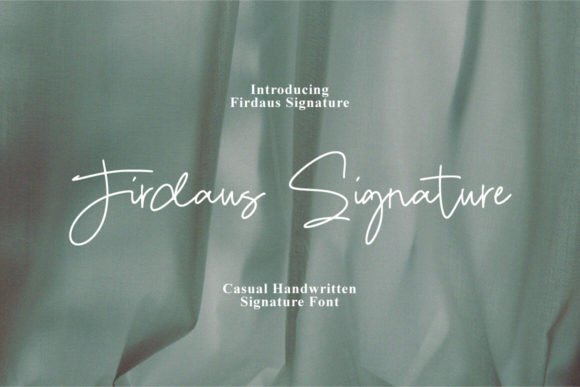
Firdaus Signature Font: Elevate Your Designs with Elegance and Sophistication
In the world of typography, a signature font can make all the difference in creating a lasting impression. Firdaus Signature is a stylish and casual handwritten font that has gained popularity for its smooth, flowing lines and natural look. This elegant font is perfect for personal signatures, logos, invitations, or any design that needs a relaxed yet sophisticated feel. In this article, we’ll explore the features, benefits, and uses of Firdaus Signature Font, and why it’s a must-have for designers and non-designers alike.
What is Firdaus Signature Font?
Firdaus Signature is a modern, handwritten font designed to add a touch of elegance and sophistication to any design project. Its smooth, flowing lines and natural look make it perfect for creating personal signatures, logos, and other visual elements that require a unique and stylish touch. The font’s casual and relaxed feel makes it ideal for use in a variety of design applications, from wedding invitations and greeting cards to branding and advertising materials.
Key Features of Firdaus Signature Font
- Smooth and Flowing Lines: Firdaus Signature Font features smooth, flowing lines that give it a natural and elegant look.
- Casual and Relaxed Feel: The font has a casual and relaxed feel, making it perfect for designs that require a personal touch.
- Handwritten Style: Firdaus Signature is a handwritten font, which gives it a unique and personal feel.
- Elegant and Sophisticated: The font’s elegant and sophisticated look makes it perfect for high-end designs and luxury brands.
- Versatile: Firdaus Signature Font is versatile and can be used in a variety of design applications, from print to digital.
Benefits of Using Firdaus Signature Font
Using Firdaus Signature Font in your designs can have several benefits. Here are a few:
- Unique and Memorable: Firdaus Signature Font can help you create unique and memorable designs that stand out from the crowd.
- Elegant and Sophisticated: The font’s elegant and sophisticated look can help elevate your brand’s image and create a lasting impression.
- Easy to Read: Firdaus Signature Font is easy to read, making it perfect for use in body text and other long-form content.
- Customizable: The font is highly customizable, allowing you to adjust the size, color, and style to fit your design needs.
Uses of Firdaus Signature Font
Firdaus Signature Font is a versatile font that can be used in a variety of design applications. Here are a few examples:
- Personal Signatures: Firdaus Signature Font is perfect for creating personal signatures that are unique and stylish.
- Logos: The font can be used to create elegant and sophisticated logos for businesses and brands.
- Invitations: Firdaus Signature Font is ideal for use in wedding invitations, birthday invitations, and other formal events.
- Branding: The font can be used in branding materials, such as business cards, letterheads, and packaging.
- Advertising: Firdaus Signature Font can be used in advertising materials, such as billboards, posters, and flyers.
Tips and Tricks for Using Firdaus Signature Font
Here are a few tips and tricks for using Firdaus Signature Font:
- Use it Sparingly: Use Firdaus Signature Font sparingly to create a lasting impression.
- Pair it with Other Fonts: Pair Firdaus Signature Font with other fonts to create a unique and stylish look.
- Adjust the Font Size: Adjust the font size to create visual hierarchy and emphasis.
- Experiment with Colors: Experiment with different colors to create a unique and stylish look.
Firdaus Signature Font is a stylish and casual handwritten font that can elevate your designs with elegance and sophistication. Its smooth, flowing lines and natural look make it perfect for personal signatures, logos, invitations, and other design applications. With its versatility, ease of use, and customizable features, Firdaus Signature Font is a must-have for designers and non-designers alike. So, download Firdaus Signature Font today and add a touch of elegance and sophistication to your designs.